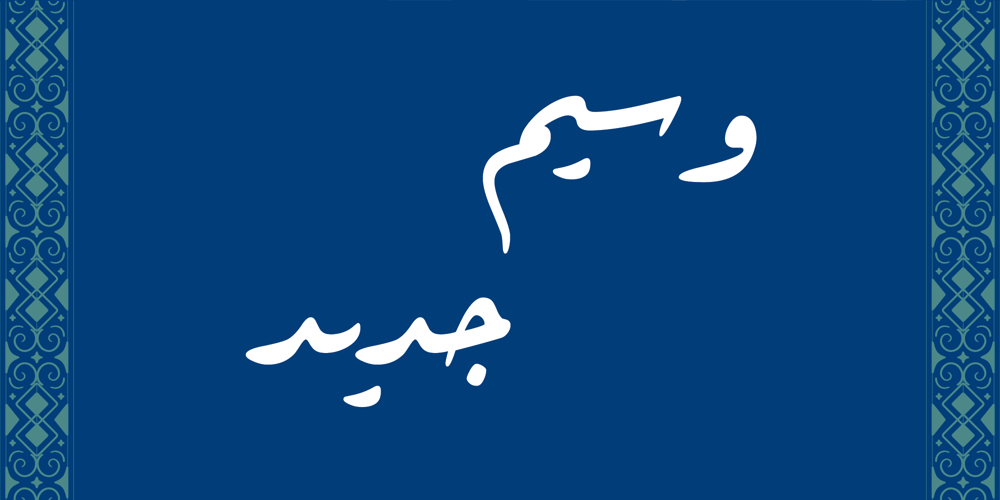
Waseem Jadid Font Family was designed by Muhammad Zeeshan Nasar, Hamid Al-Saadi and published by Diwan Software. Waseem Jadid contains 2 styles and family package options. Waseem Jadid is an informal Arabic handwriting-style Ruqaa font mimics the fluid, relaxed strokes of everyday Arabic writing. With rounded, simple shapes and smooth curves, it conveys a casual and approachable feel. The font maintains legibility while reflecting a natural, effortless style, making it ideal for informal communication, invitations, or personal projects.